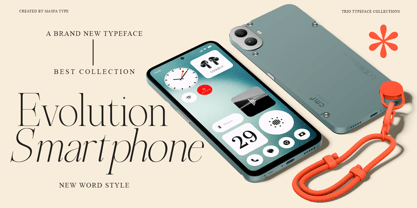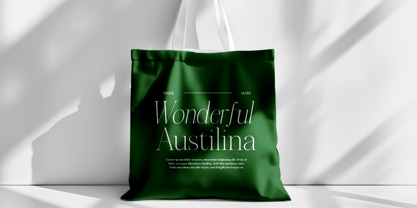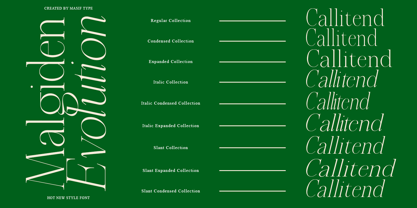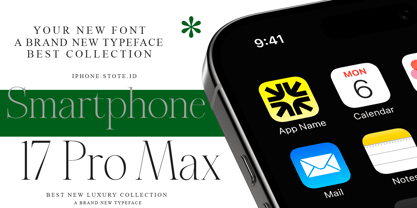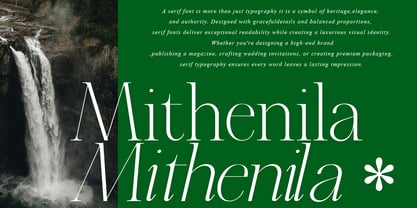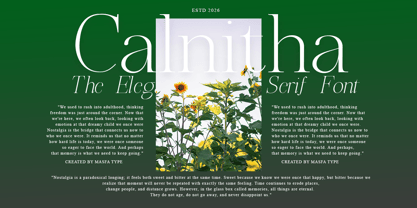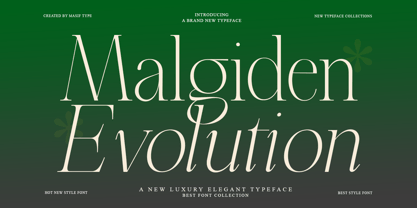
Malgiden Evolution
Die Schriftfamilie Malgiden Evolution wurde von Muhammad Asif Al-hilmy entworfen und von Masif Type veröffentlicht. Malgiden Evolution enthält 9 Stile und Familienpaketoptionen. Mehr über diese Familie
Malgiden Evolution | 9 Font Styles with a Classic Retro-Modern Serif
Malgiden Evolution is a luxurious vintage serif typeface that captures the elegance of classic design with a modern retro twist. Featuring 9+ stylistic alternates and ligatures, this medium-contrast display font allows you to mix and match letterforms to create beautiful, unique curves and shapes in seconds, without requiring advanced design skills.
Bold yet refined, Malgiden Evolution delivers a timeless character for branding, logos, wedding invitations, social media graphics, advertising, packaging, product labels, photographic watermarks, stationery, and any project requiring sophisticated, high-impact typography. Its versatile design maintains excellent readability for both large display headlines and smaller editorial text.